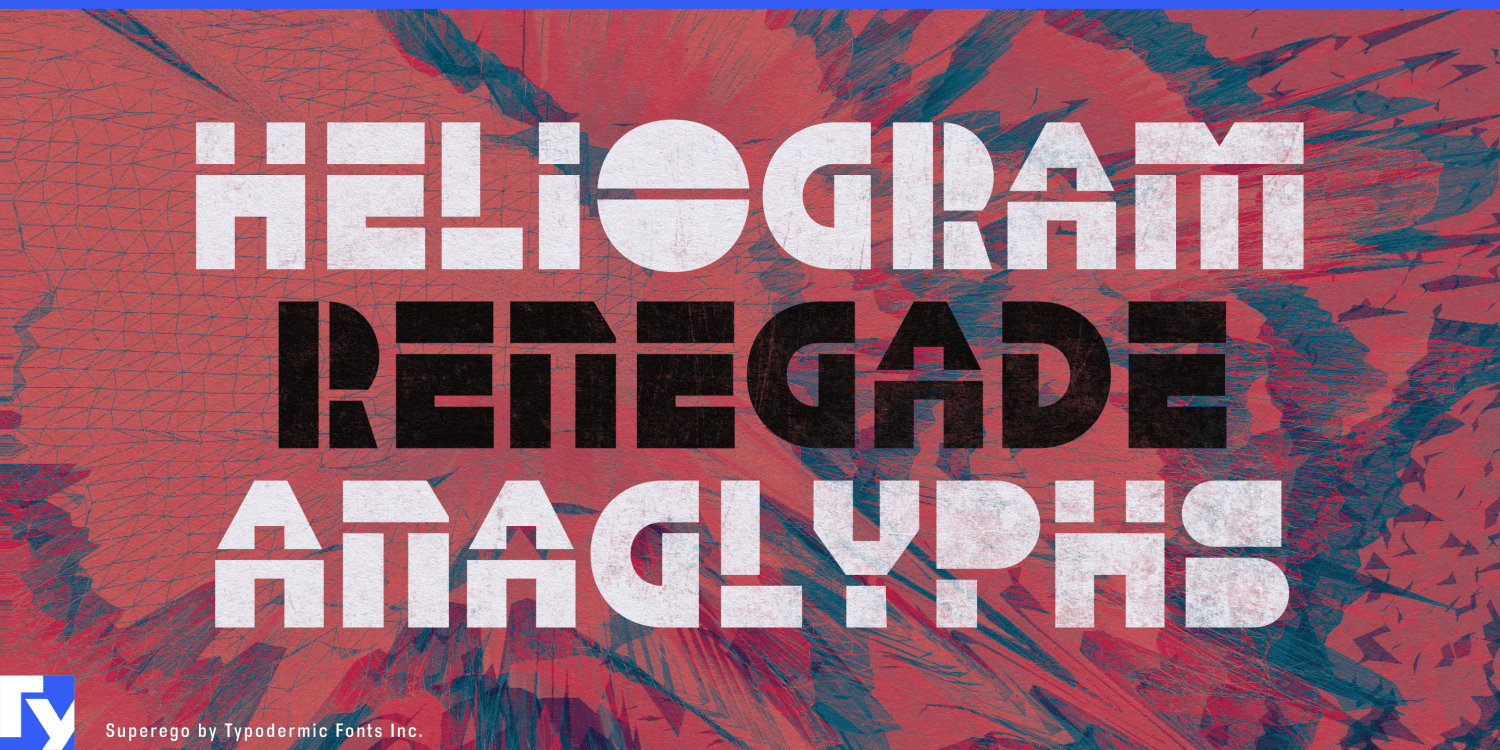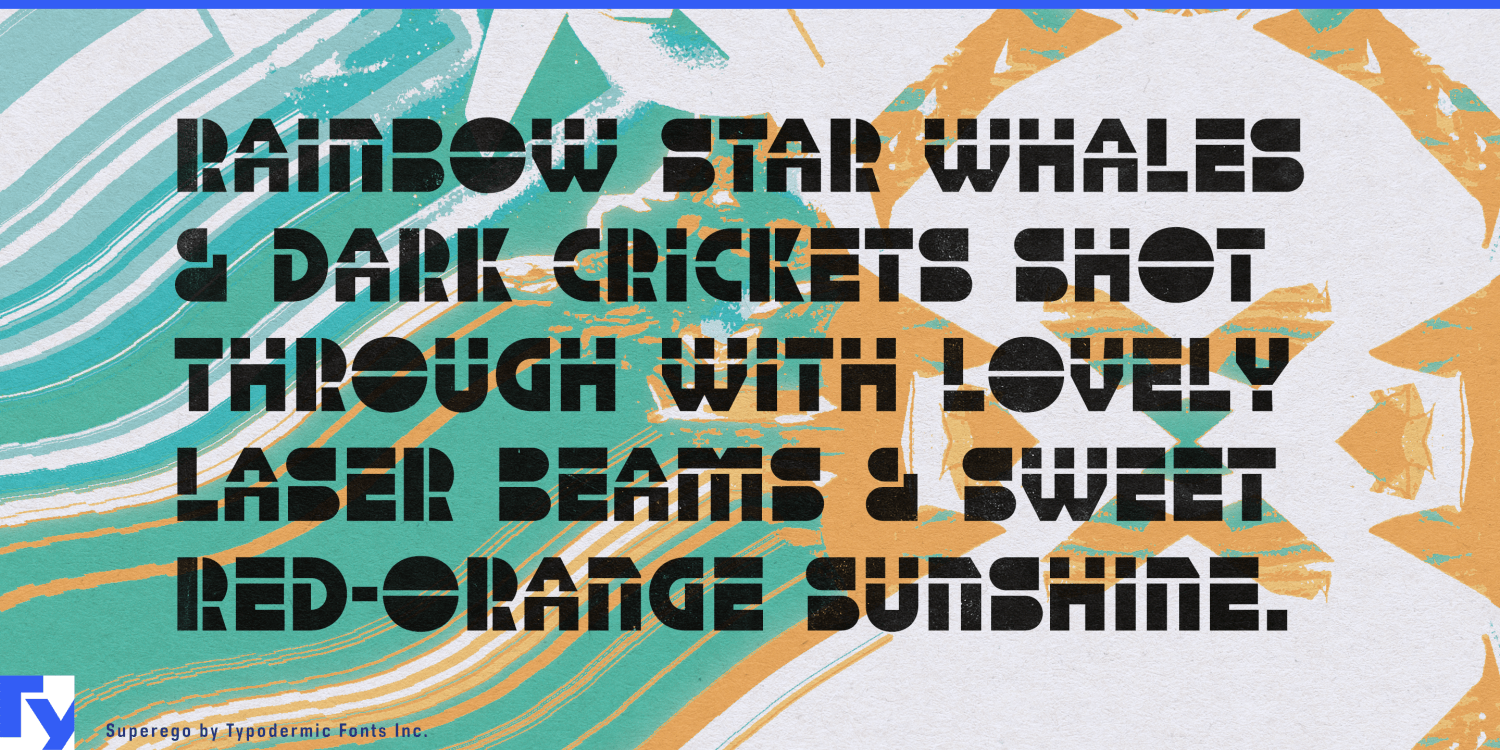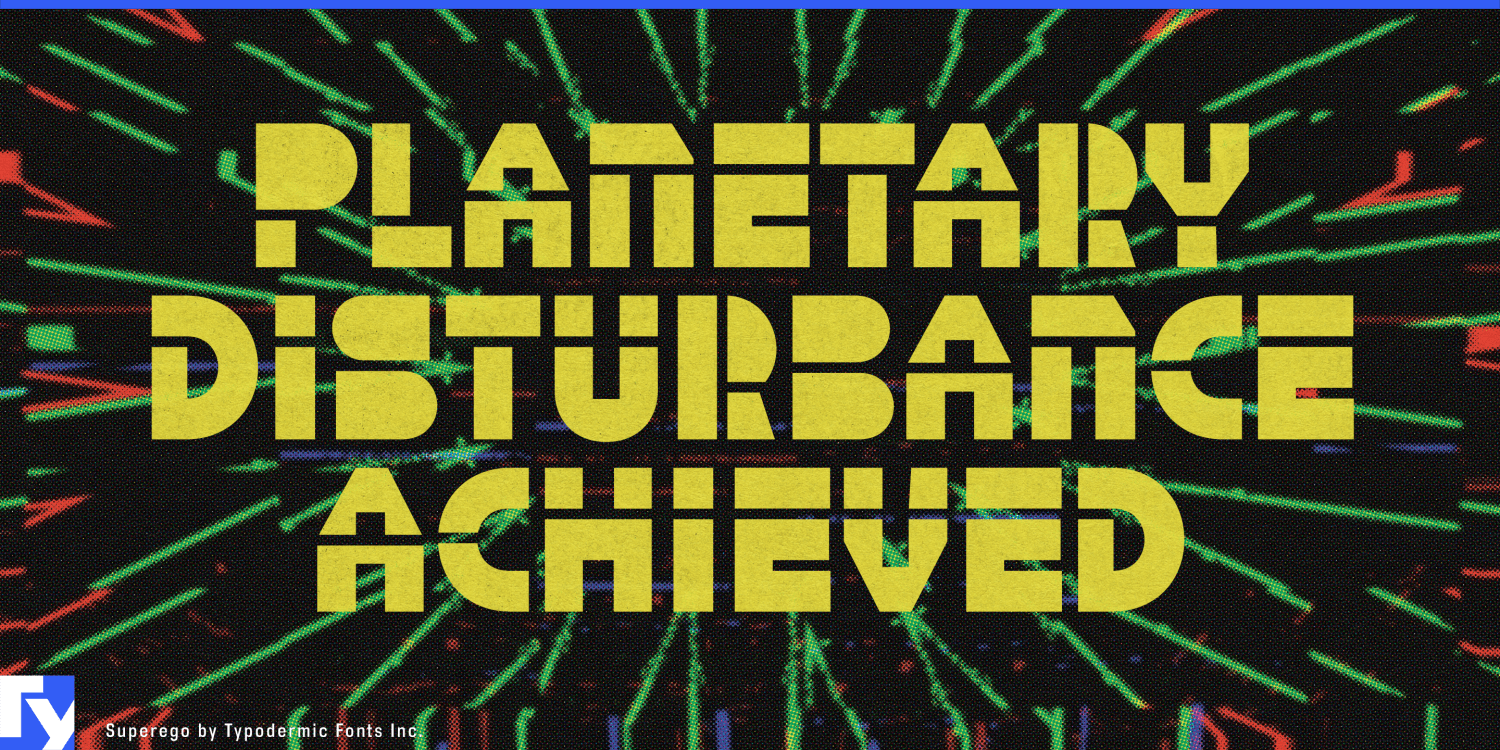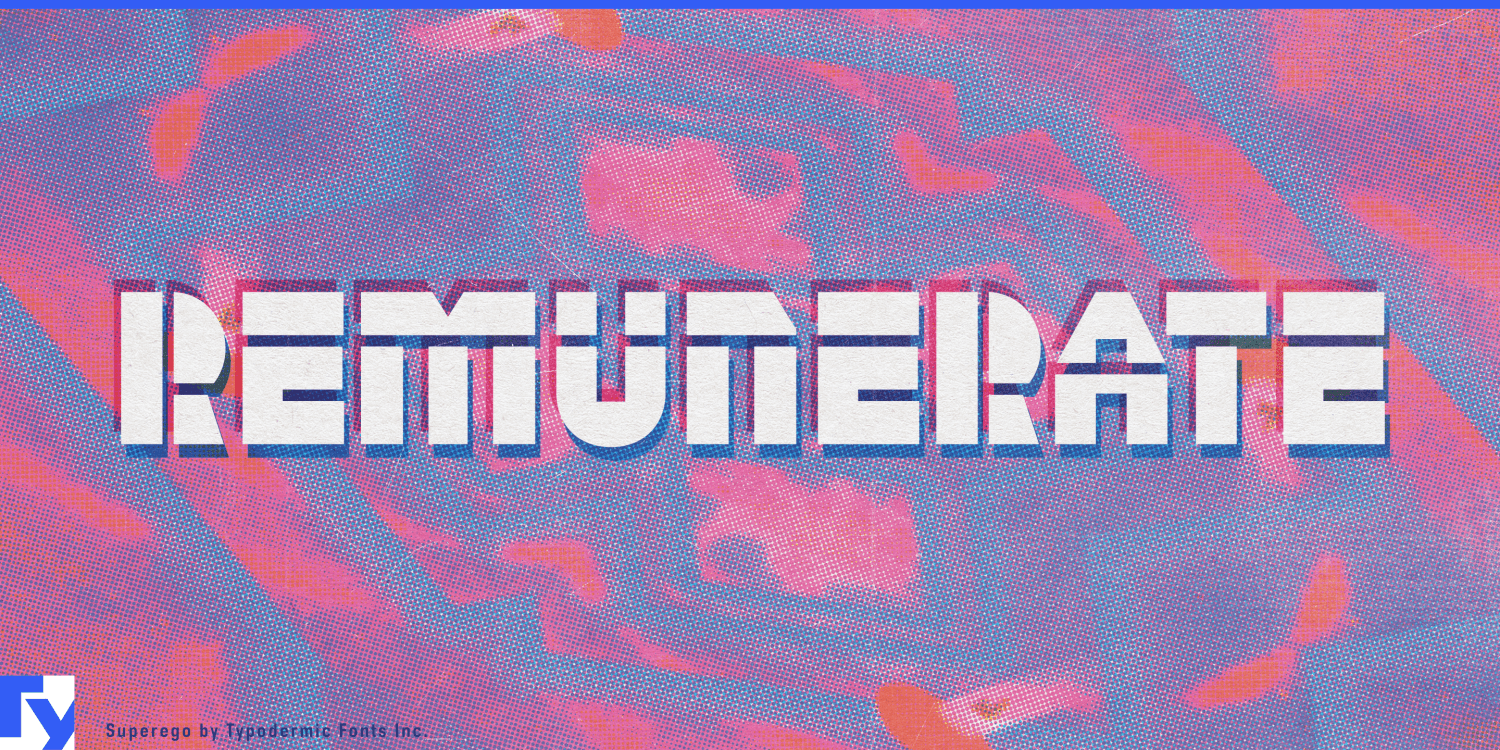
About Superego
Prepare for typographic liftoff with Superego—a geometric-techno typeface that doesn’t just push the envelope, it launches it into orbit. Born from the enticing glow of 1981’s Stargate arcade cabinets, Superego catapults retro-futurism…